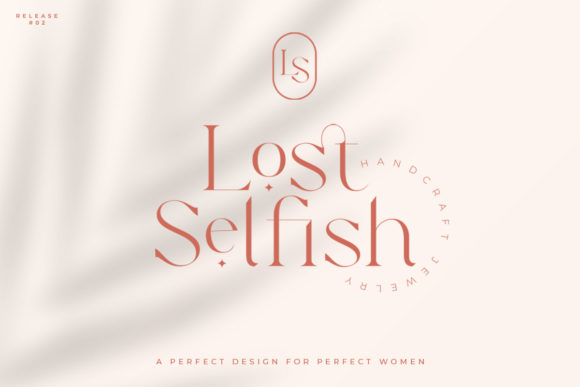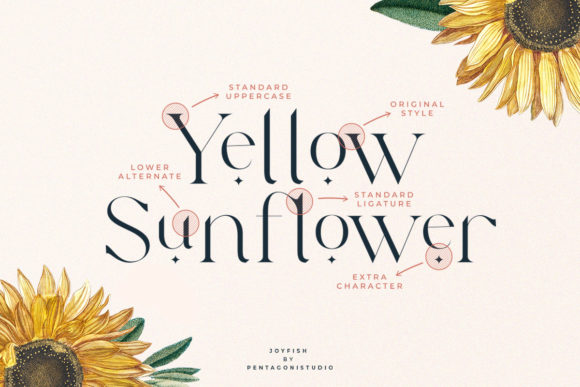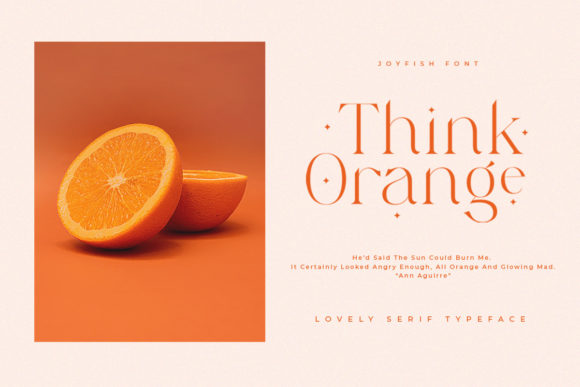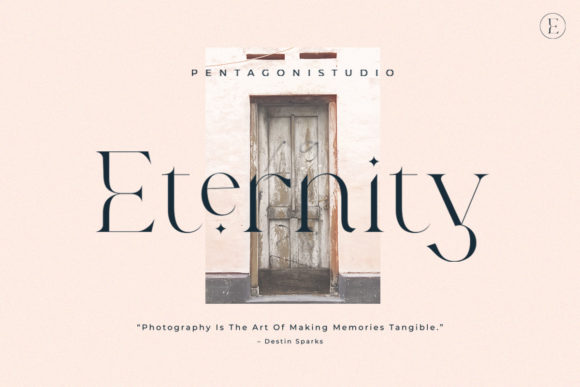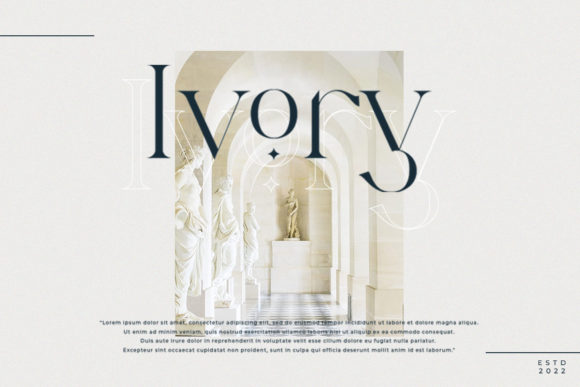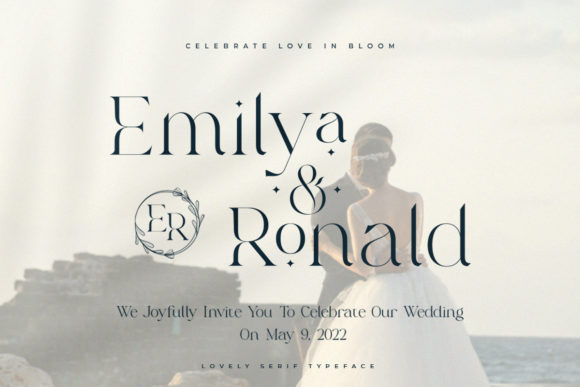
Introduction to Joyfish Font
As designers, we’ve all been there – staring at a blank canvas, searching for the perfect font to bring our creative project to life. It’s a moment of pure inspiration, where the right typeface can elevate our design from ordinary to extraordinary. And for those who are part of this moment, the Joyfish Font is about to become their new best friend.
About the Joyfish Font
With its sleek, slim serif design, the Joyfish Font is a game-changer for designers who crave high-quality typography. This beautiful font is not only stylish but also PUA encoded, allowing users to access all of the glyphs and swashes with ease. Whether you’re working on a design project that requires a transparent background or a creative project that demands a unique touch, the Joyfish Font is an invaluable design resource that’s sure to impress.
Discover the Joyfish Font Today
Key Features of Joyfish Font
- Transparent Background: The Joyfish Font offers a transparent background, allowing for seamless integration with various design elements.
- High-Quality Design: This font is designed with high-quality in mind, making it perfect for creative projects that demand attention to detail.
- Optimized for High Resolution: The Joyfish Font is optimized for high-resolution displays, ensuring that it looks crisp and clear on modern screens.
- Unique Character Set: The font features a unique character set, including a wide range of glyphs and symbols, making it perfect for creative projects that require a touch of personality.
Honest Review: Joyfish Font
As a designer, I’m always on the lookout for high-quality design resources to elevate my creative projects. The Joyfish Font is one such resource that caught my attention, and I’m excited to share my honest review with you.
What works well: ✨ The Joyfish Font has a unique, playful aesthetic that’s perfect for projects that need a touch of whimsy. The font is well-crafted, with smooth lines and a transparent background that makes it easy to use on any design surface. I love how versatile it is – I’ve used it for everything from social media graphics to wedding invitations.
Overall, I’m really impressed with the Joyfish Font. It’s a great addition to any designer’s toolkit, and I love how it adds a touch of personality to my creative projects. If you’re looking for a fun, high-quality font to elevate your design work, I’d definitely recommend checking it out.
Here are some key features of the Joyfish Font:
- Unique, playful aesthetic
- Smooth lines and transparent background
Is the Joyfish Font a high-quality font suitable for print and digital use?
Yes, the Joyfish Font is a high-quality design resource, carefully crafted to provide crisp and clear text in both print and digital formats. With its clean and modern design, it’s perfect for use in various creative projects, from logos and branding to web design and publishing. The font’s high quality ensures that it will look great on any device or printing press.